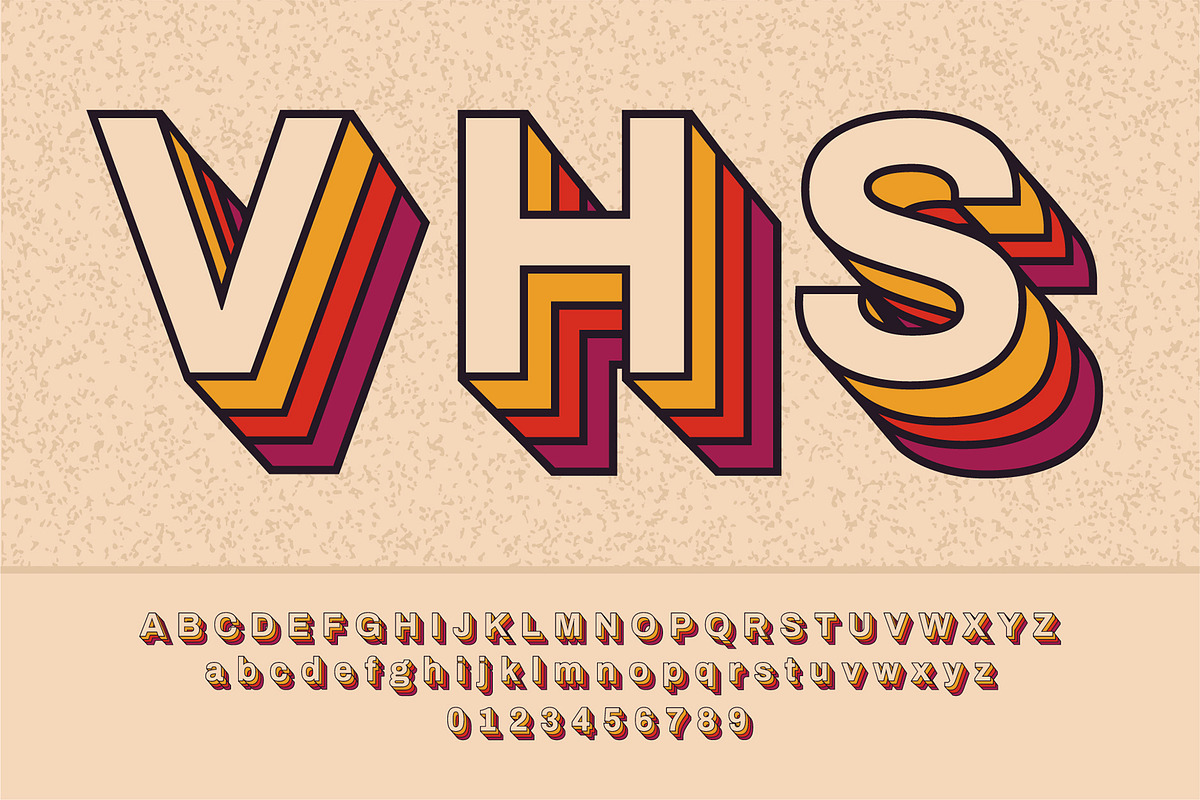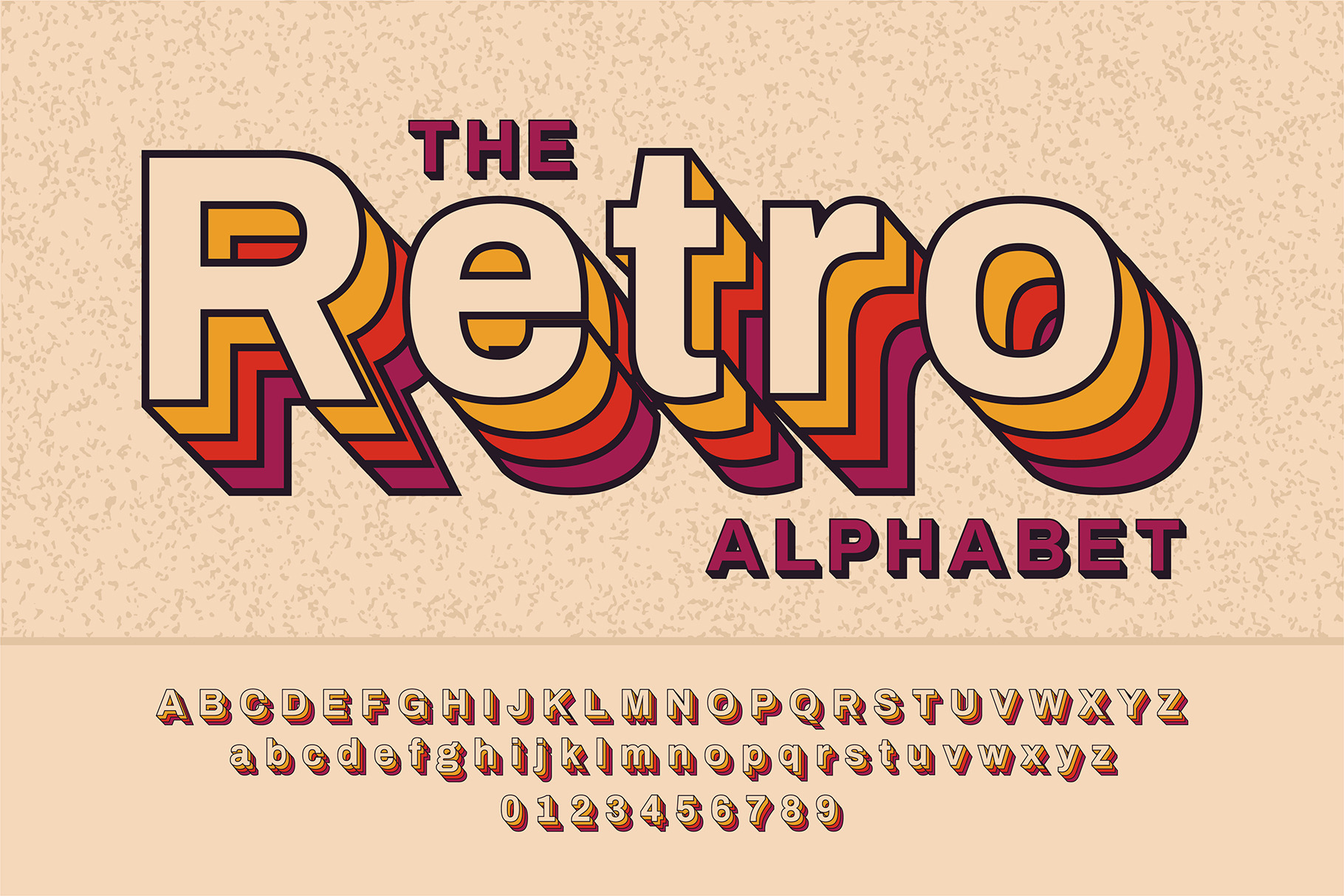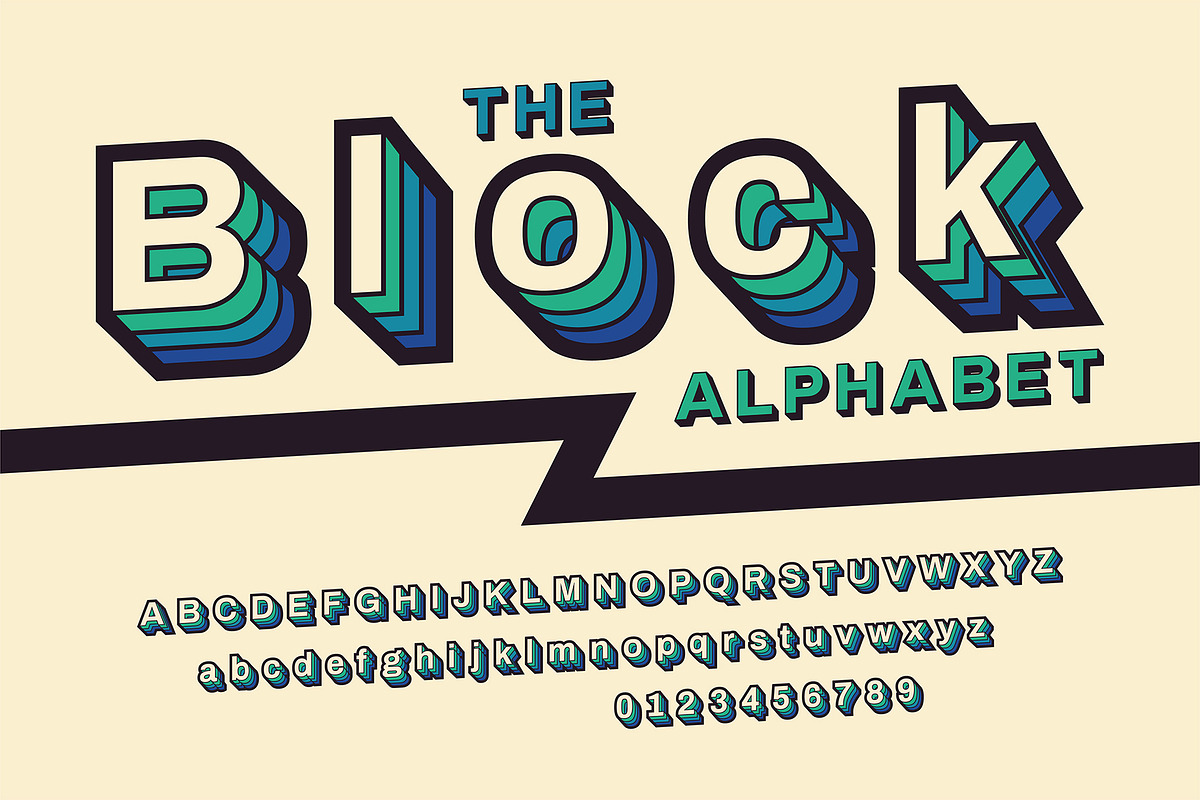
Retro VHS Layered Font
Retro 80s and 90s Font with Colorful Layers and VHS Effect, Vector Alphabet with Vintage Pop Art Typography Style - EPS (Not a Font!)
Uppercase letters A - Z (italics and normal)
Lowercase letters A - Z (italics and normal)
Numbers 0 - 9 (italics and normal)
Clean, modern, and unique alphabet design